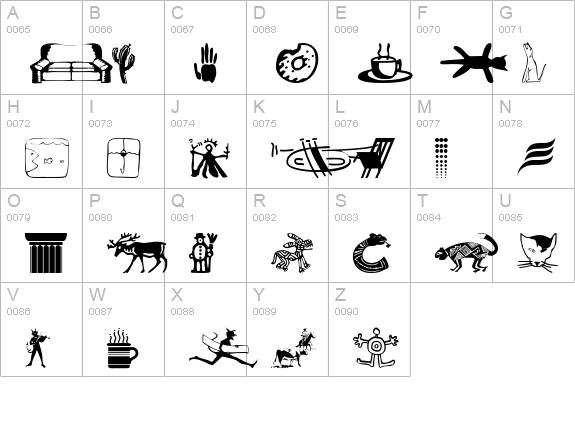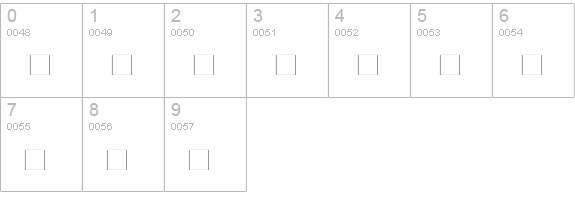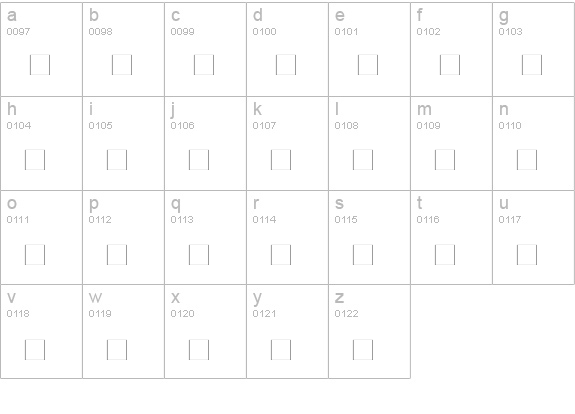
Lunchboxdingbats-regular is the standard, neutral variant in the Lunchboxdingbats typeface family \xE2\x80\x94 well suited to general body text, paragraphs, and standard typographic work.
Lunchboxdingbats-regular font is a playful and whimsical typeface that is perfect for adding a touch of fun to your projects. This font features a collection of unique dingbats and icons that can be used to enhance your designs and add a creative flair. Whether you're working on a project for school, work, or personal use, Lunchboxdingbats-regular font is sure to make a statement. Best of all, Lunchboxdingbats-regular font is completely free to download! You can easily access this font at FontsMarket.com and start using it in your projects right away. Don't miss out on this opportunity to add a fun and quirky touch to your designs with Lunchboxdingbats-regular font. Download it now and let your creativity shine!